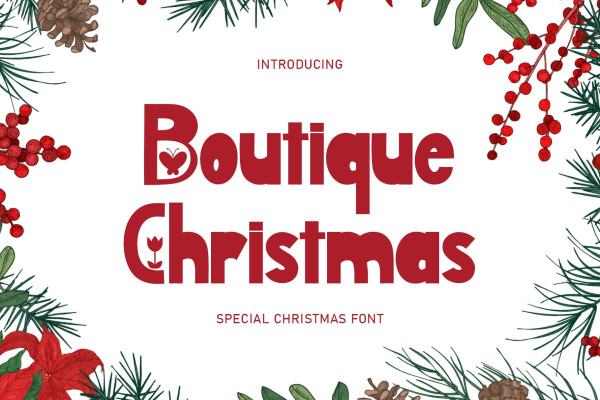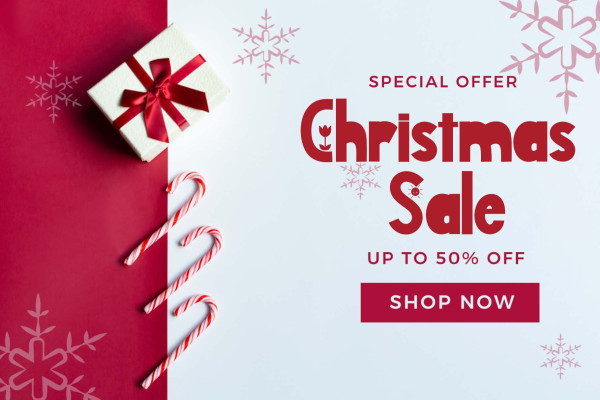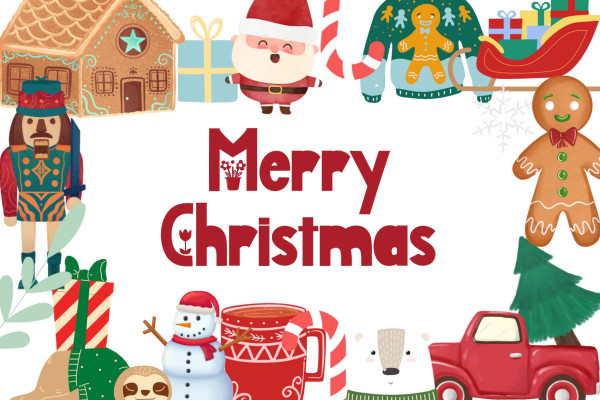
Boutique Christmas Font
Boutique Christmas Font is a display font decorated with flowers and butterflies. This font is equipped with uppercase, lowercase, numerals, punctuation, and multilingual support. It is suitable for Christmas, summer, holidays, banners, branding, posters, graduations, the 4th of July, and others.